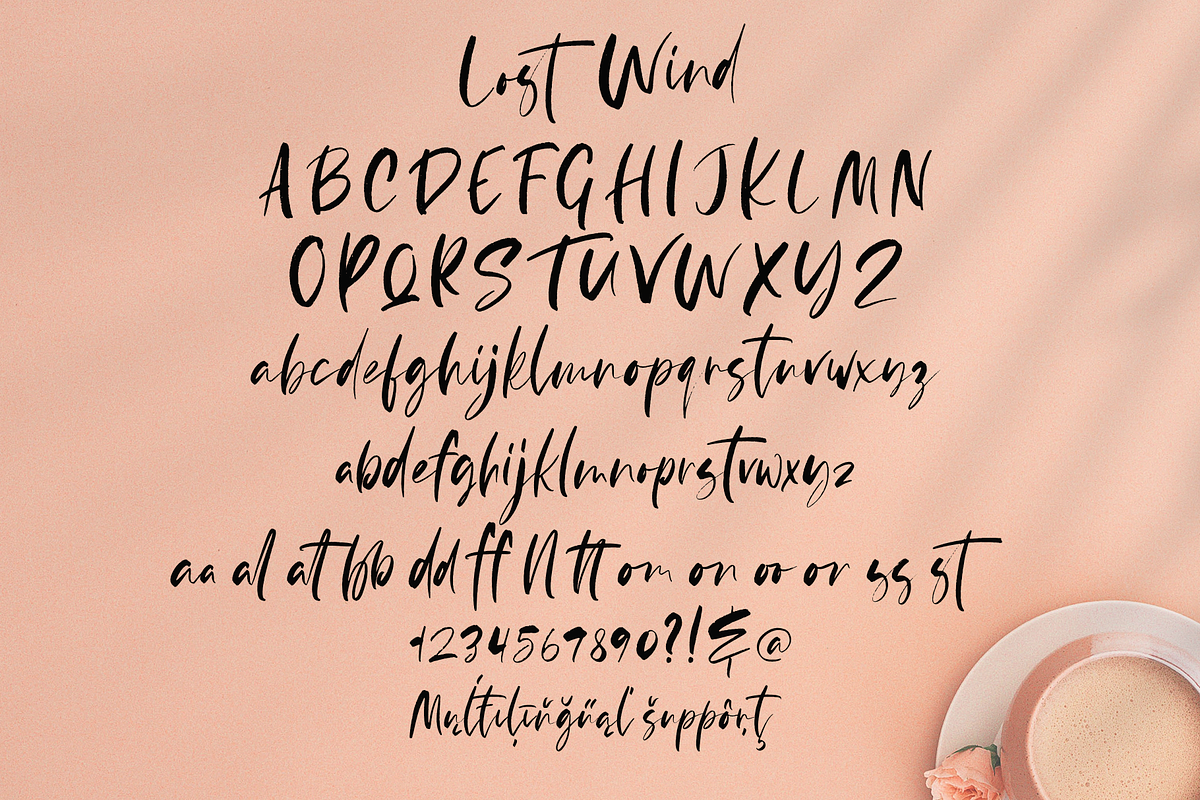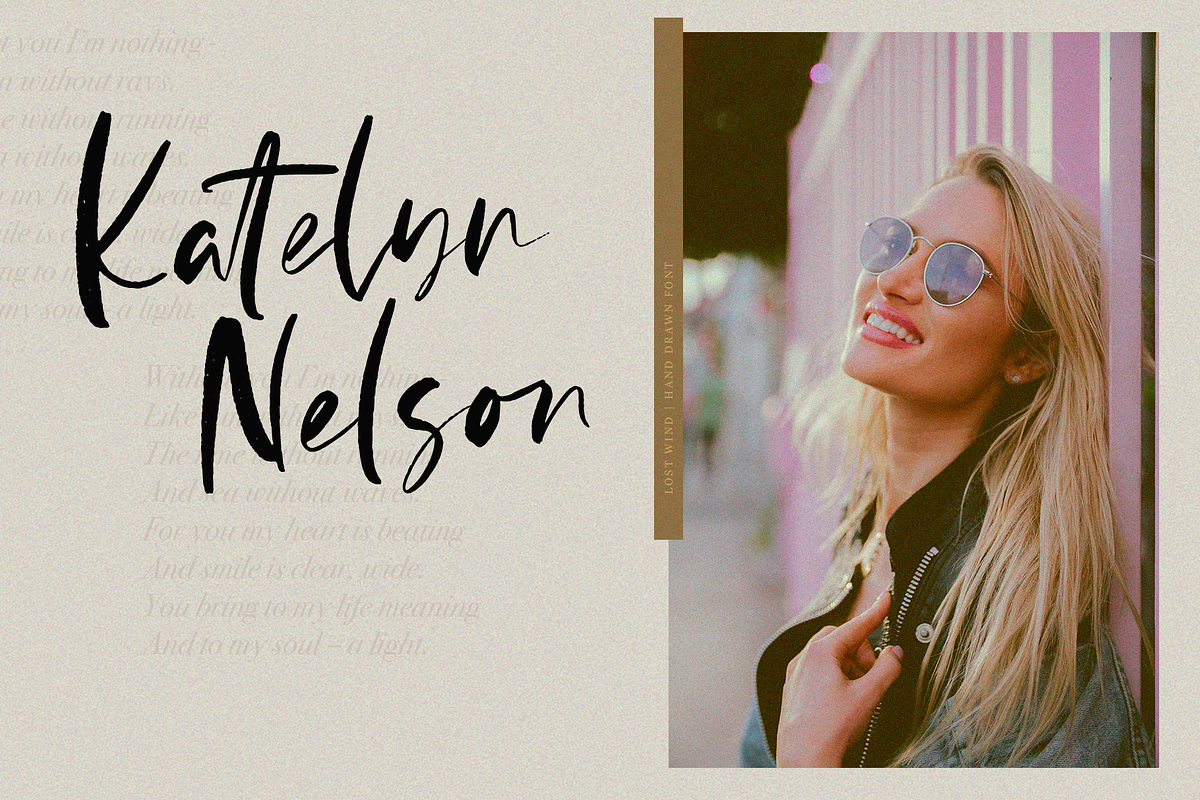
Lost Wind
Lost Wind - a new hand drawn brush font.
This is a beautiful and elegant drawn hand font, will emphasize your individuality in any project. You can also use them to create a logo or use for small businesses, branding, t-shirts, book covers, stationery, marketing, blogs, magazines, and more. This font includes a basic set of letters and a complete set of alternatives set as well as numbers, fractions, and basic punctuation. This font supported PUA encoded.
Following international symbols support: ÀÁÂÃÄÅĄÇĆÈÉÊËĘÌÍÎÏÐÑŃŁÒÓÔÕÖØÙÚÛÜŚŠŸÝŹŻŽßàáâãäåçèéêëìíîïðñòóôõöøùúûüýÿąćęłńśšźżž
-Full alphabet with Uppercase and Lowercase A-z
-Numbers, fractions
-Punctuation and mathematical symbols
-Alternates
-Multilingual support